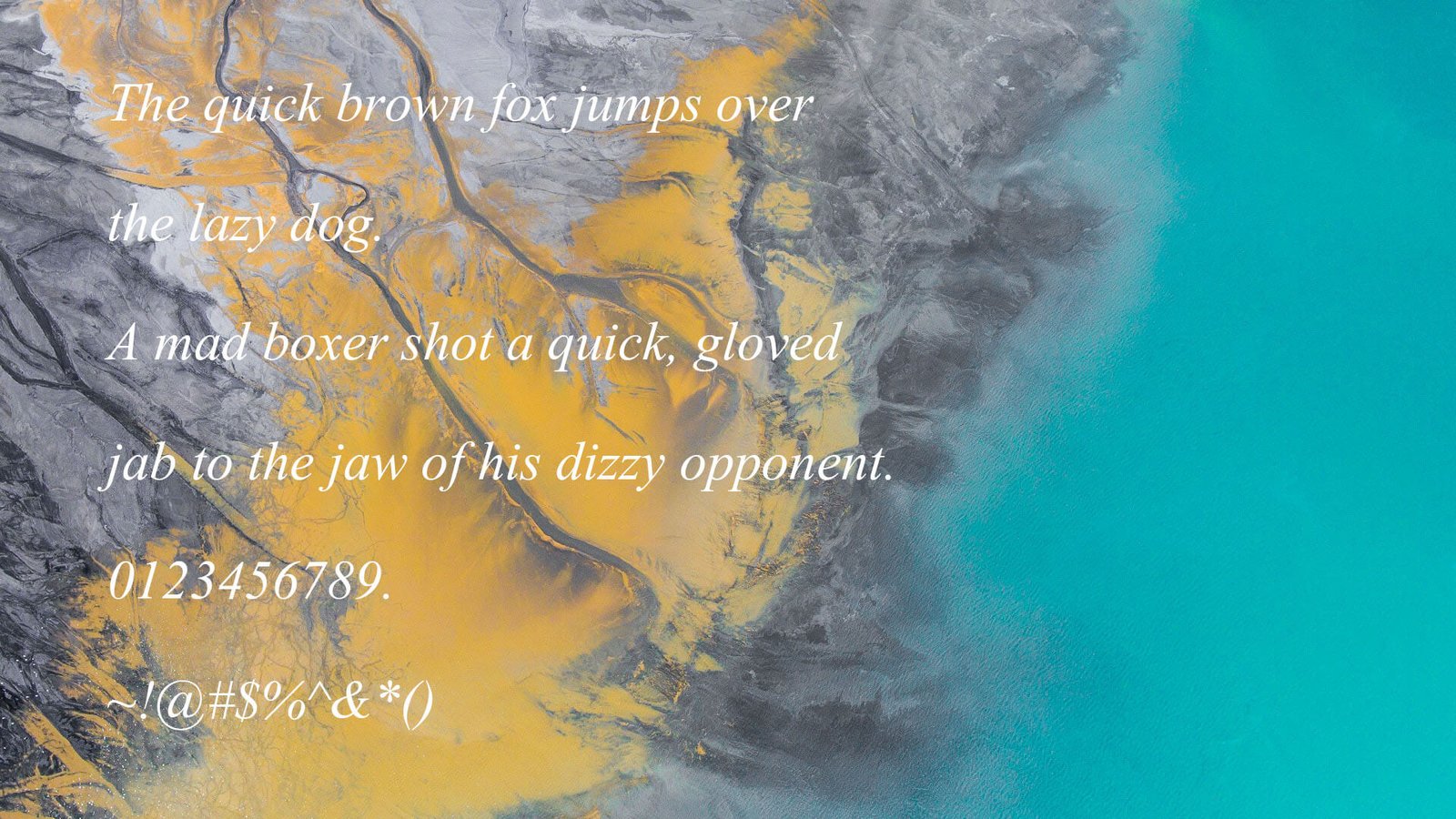
Vijaya is a dynamic font. It is designed and developed by Modular Infotech. It is the font which mainly use for displaying Tamil text in different documents. This font was first introduced in windows. It is designed to use for rendering text in windows, on-screen reading, and developing user interfaces. This font also supports the Tamil script.
Vijaya font has two styles which are Vijaya regular and bold. It contains 422 glyphs and 2048 units per em. It provides 1462 Ascenders and -600 Descenders value.
| Name | Vijaya Font |
| Designer | Designed and developed by Modular Infotech |
This font feature includes heights of letters at 2062 and max advance width of 3010. Baskerville Font is the closest alternative to this font.